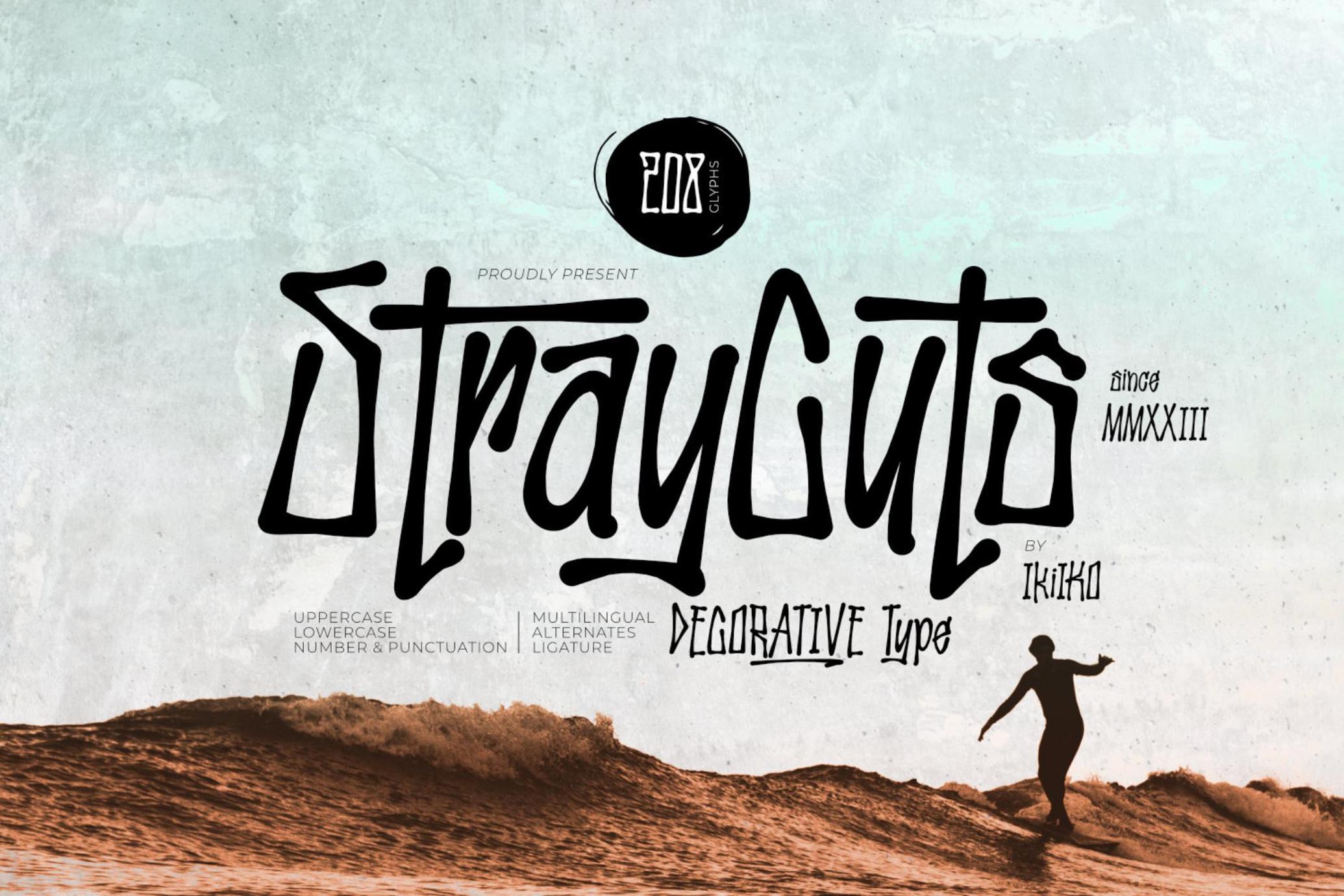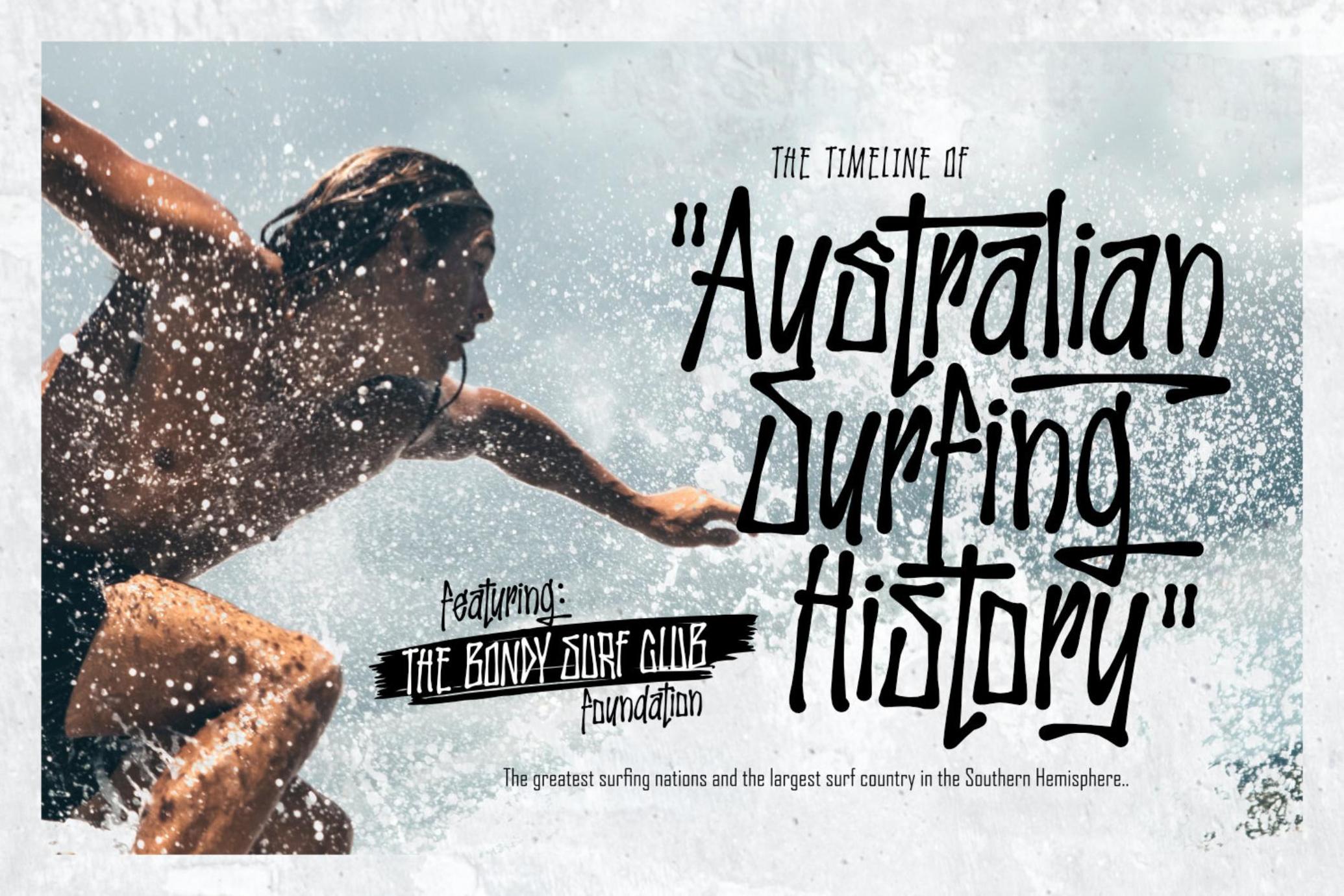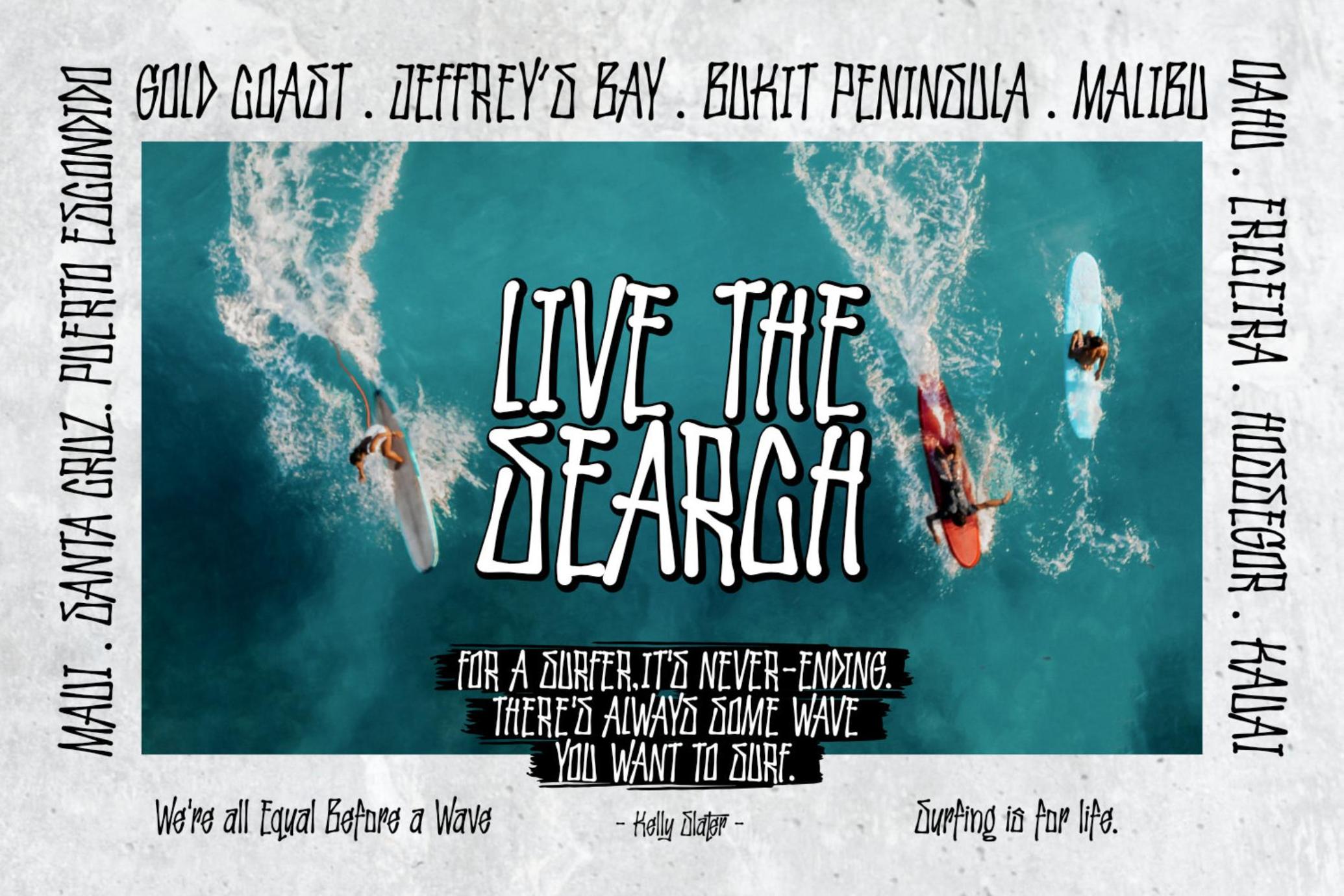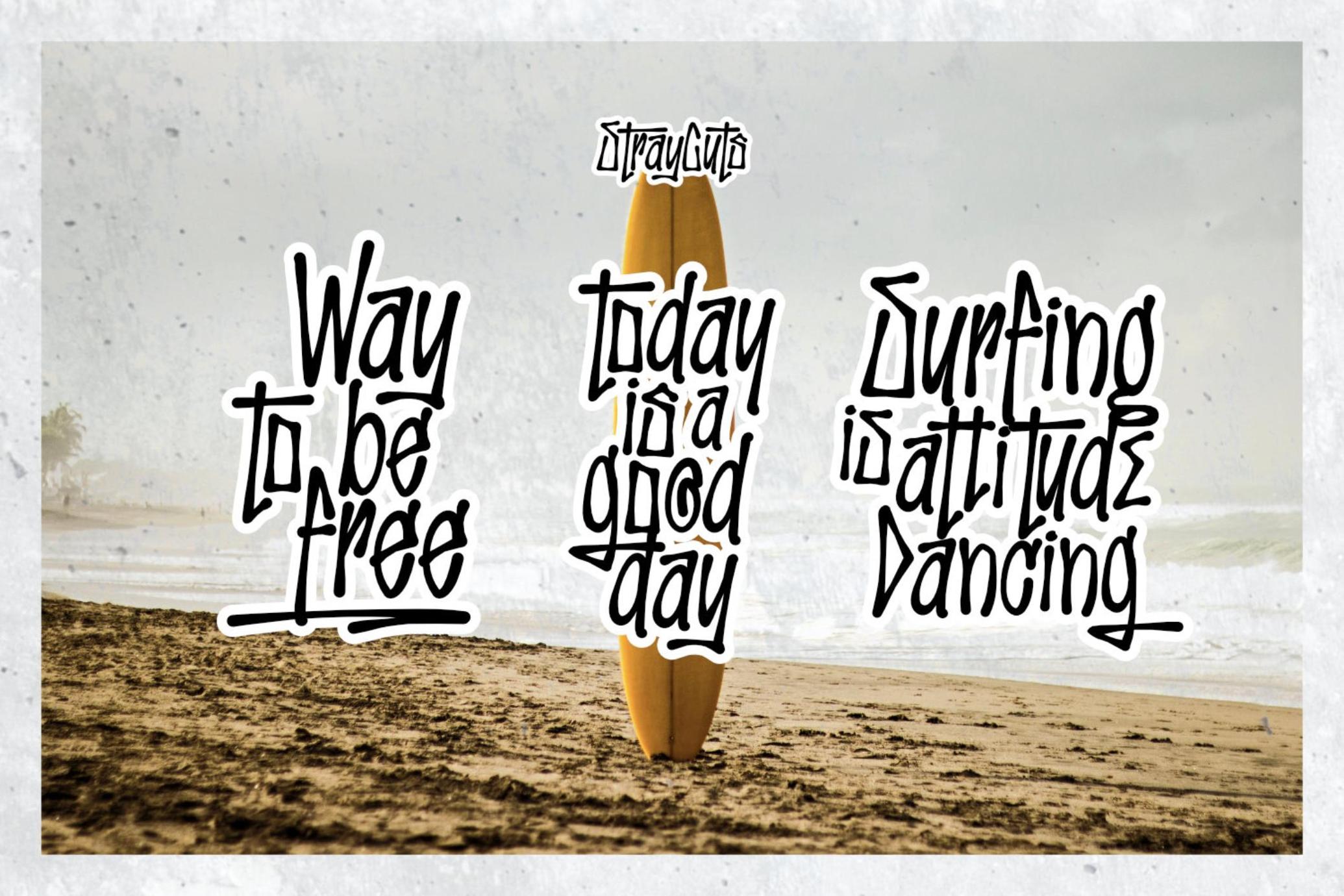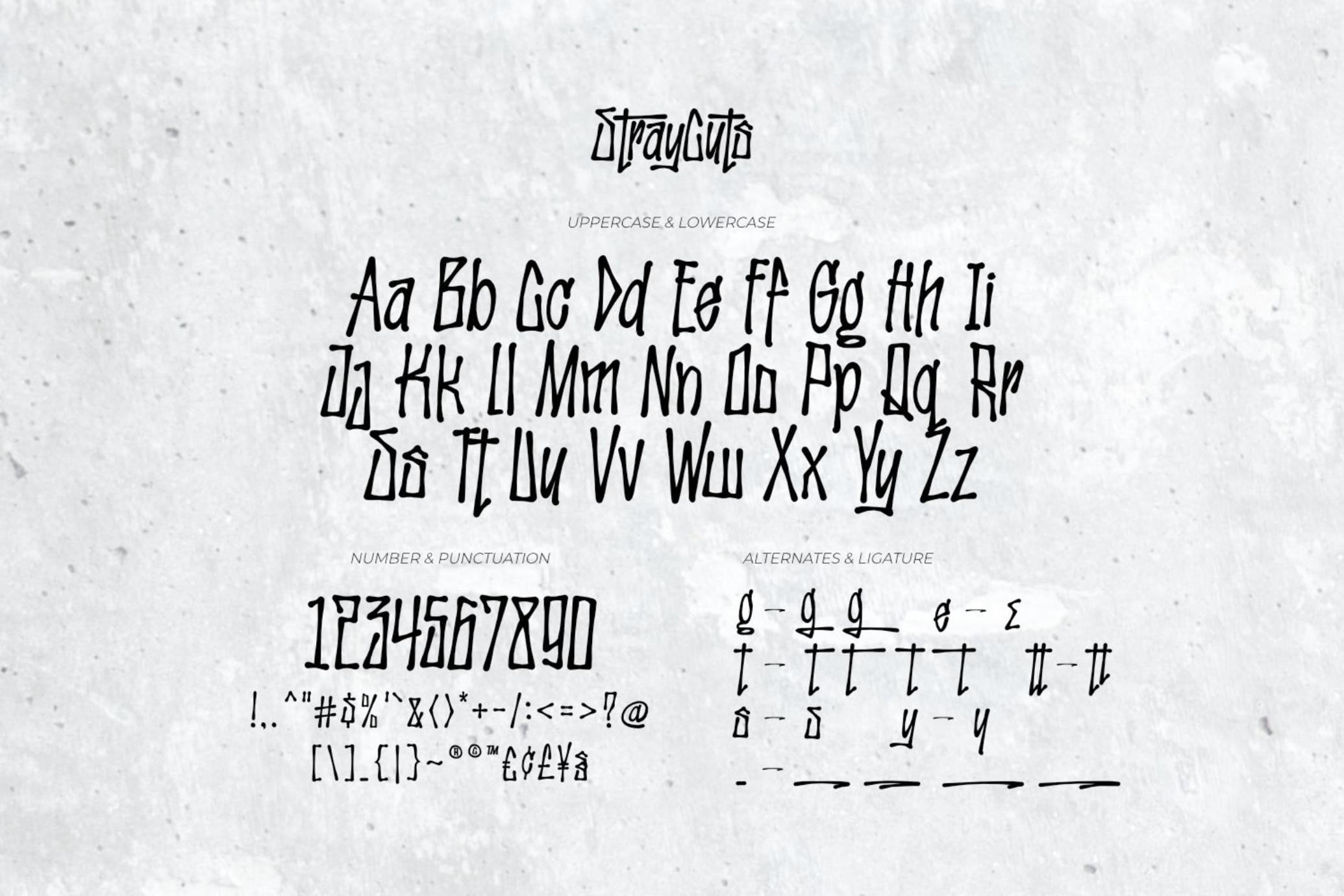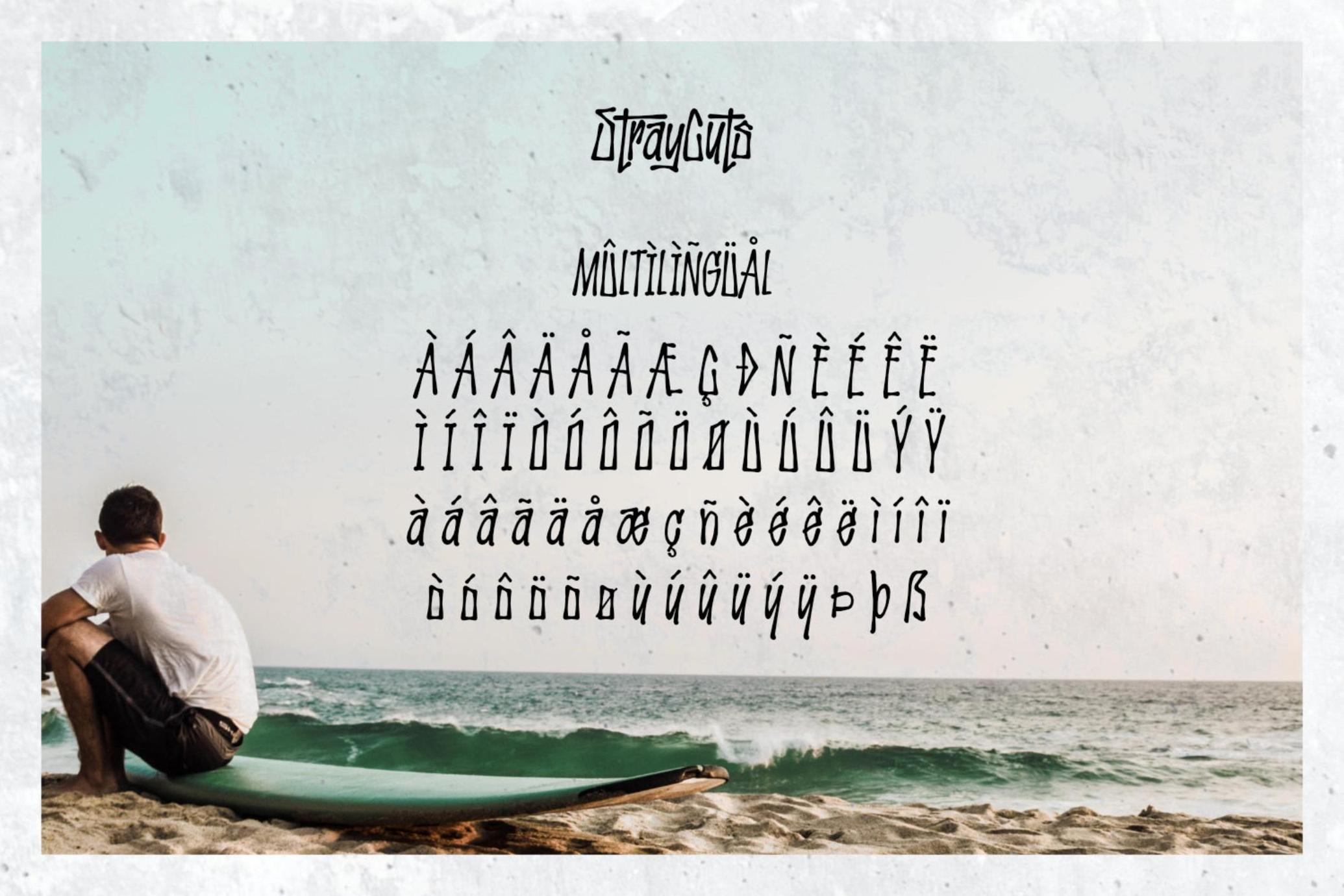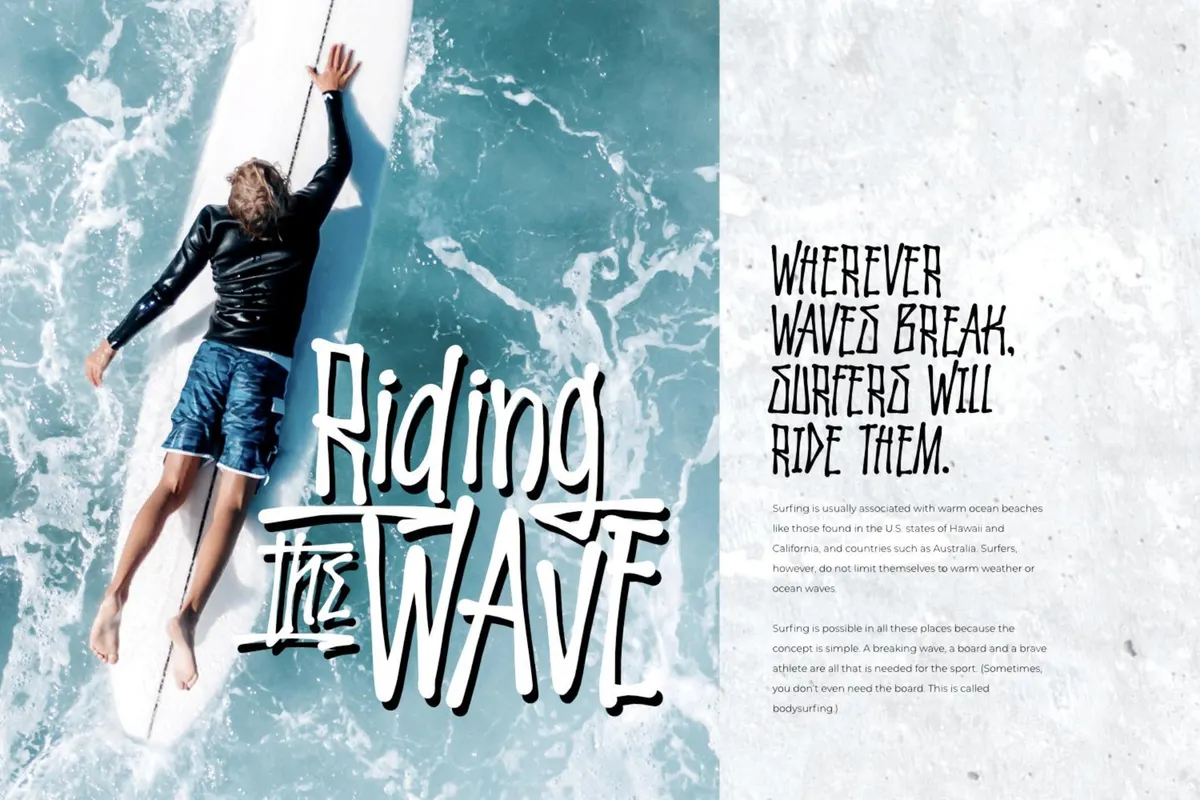
Stray Cuts - Decorative Font
Stray Cuts is a raw and expressive brush font with a touch of "Surf Vibes". This type has a freestyle line with a sharp cut shape. This typeface is perfect for an extreme sport event, poster, flyer, magazine cover, street wear brand, fashion youth, quotes, or stylish text overlay to any background image.
Uppercase & Lowercase
Number & Punctuation
Alternates & Ligature
Multilingual Support